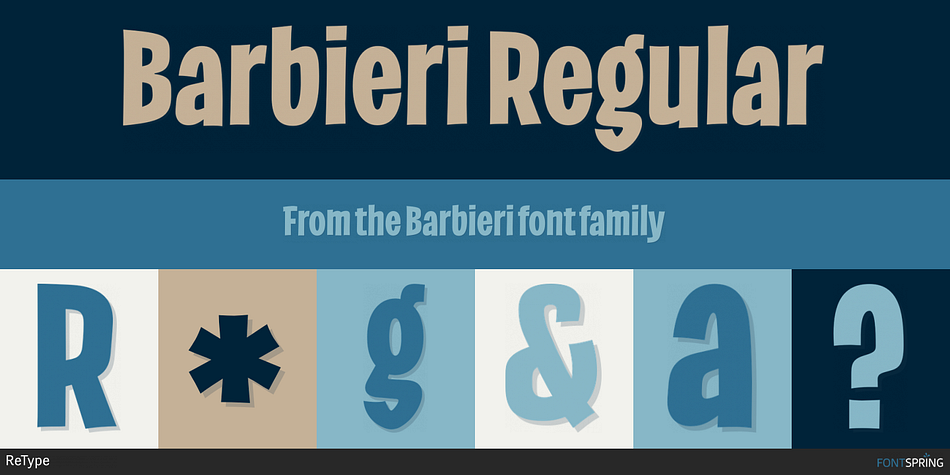
Barbieri is a display, display sans and kids font family. This typeface has six styles and was published by ReType.
Barbieri Regular
Barbieri is a casual, compressed san-serif family based on German lettering styles from the 1950s and ‘60s. The original hand-drawn alphabet appeared on the cover of a Deutsche Grammophon edition of Der Barbier von Bagdad, an opera composed by Peter Cornelius.
Unlike many typefaces in this genre, Barbieri is a version-rich family of five weights ranging from Thin to Black. These playful, expressive styles work especially well for video games, children’s books, apps, toy brands, T-shirts, logos, packaging, posters, greeting cards, and cover art.
The set also includes discretionary ligatures, alternate forms, tabular figures, and wide language support for Central European and Baltic languages.